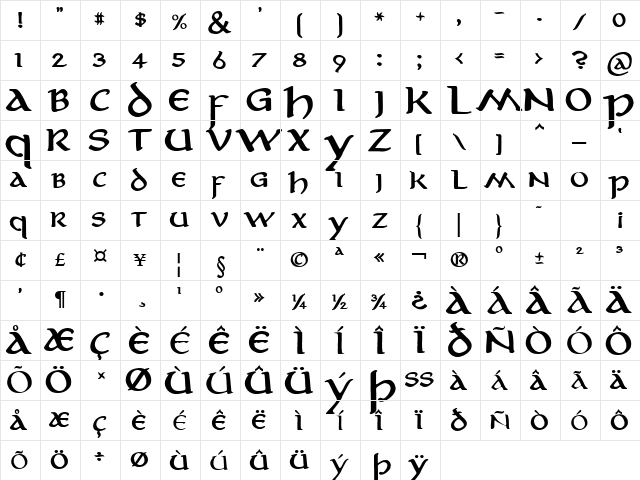
Aniron Bold
| Designer | Pete Klassen |
Design Context for Aniron Typeface
Aniron is a composed and adaptable typeface that performs quietly and consistently across a wide range of design contexts. The heavy weight commands attention and anchors typographic hierarchies.